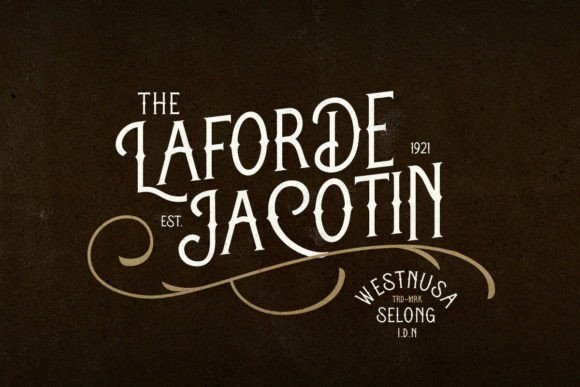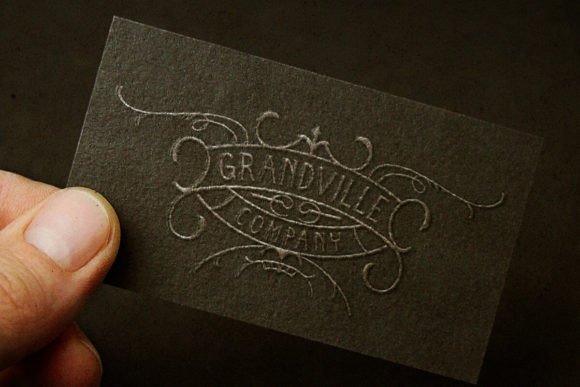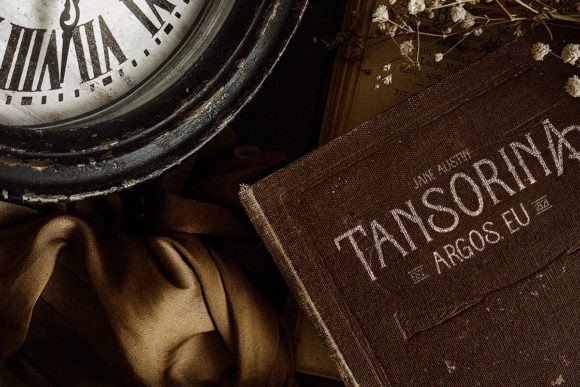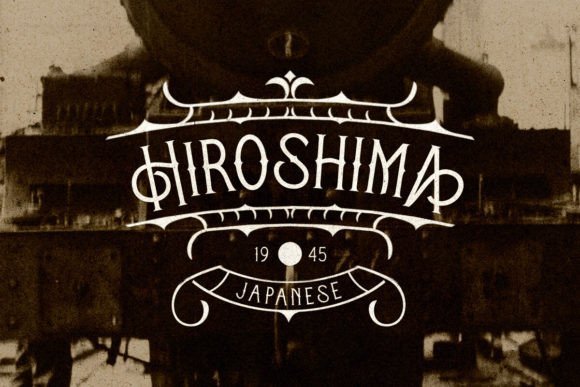
Architoria Font
baletype
Architoria is a blackletter font that has a vintage victorian style. You can use this font for projects that need a vintage and old look such as poster, logotype, branding and so much more.